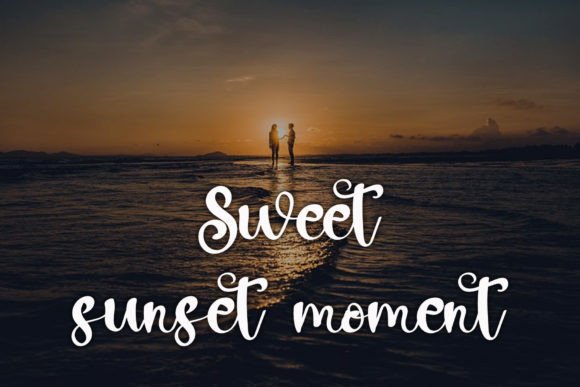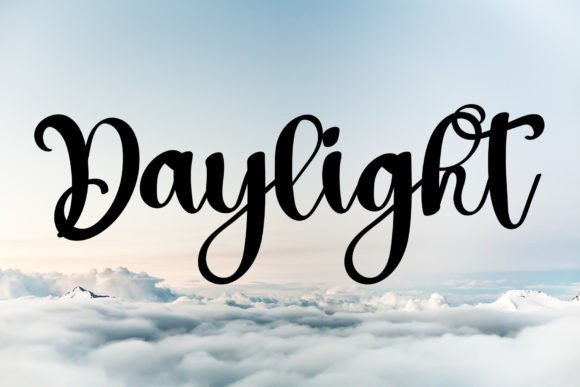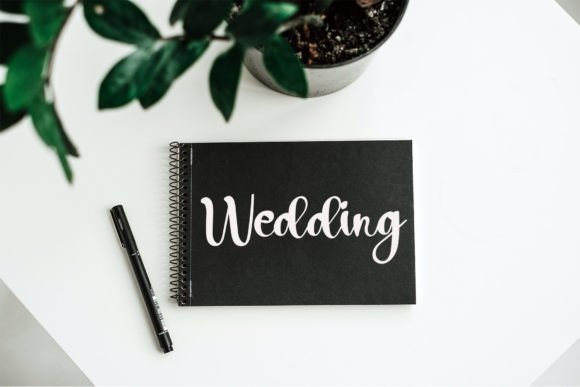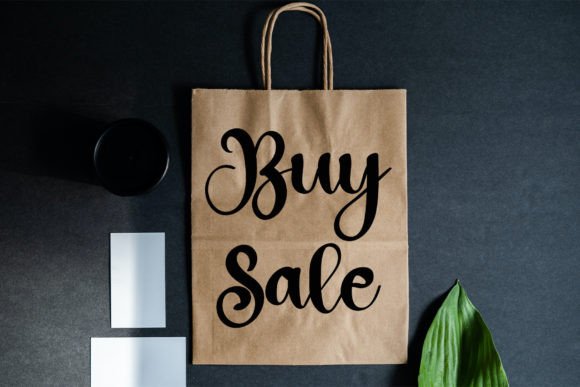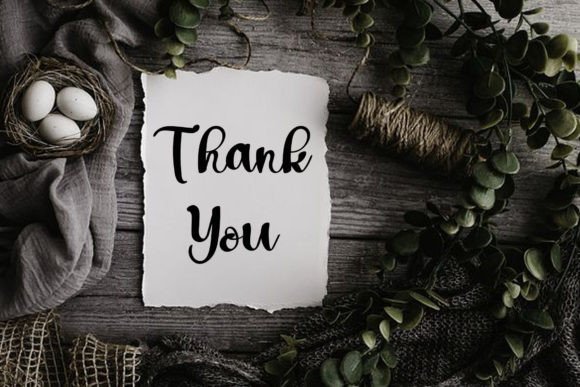
Introduction to Seafret Font
As a designer, there’s nothing quite like the thrill of discovering a new font that captures the essence of your creative vision. For me, that moment came when I stumbled upon the enchanting Seafret Font. Its elegant, handwritten touch transported me to a world of possibilities, where every project seemed like a masterpiece waiting to happen. I couldn’t help but wonder what kind of magic this font could weave into my designs.
Seafret Font is more than just a pretty face – it’s a valuable addition to any designer’s toolkit. With its high-quality, transparent background, it’s perfect for creating stunning visuals that pop against any background. Whether you’re working on a free download project or a commercial design, Seafret Font is sure to elevate your work to new heights.
Key Features of Seafret Font
- High-quality design resource ideal for creative projects, including posters, logos, and more.
- Seafret Font features a transparent background, allowing for seamless integration with any design.
- Includes 1 font style with 1 weight and 1 style.
- Designed for use at 72 dpi resolution and 100% scalable.
- Perfect for designers looking for a unique, hand-drawn font with a touch of elegance and sophistication.
Honest Review: Seafret Font
As a designer, I’m always on the lookout for high-quality design resources to elevate my creative projects. The Seafret Font caught my attention, and I decided to give it a try.
First impressions: the font looks stunning, and the free download option is a major plus. I love how it’s perfect for creating a modern, ocean-inspired aesthetic in my designs. The transparent background is also a great feature, making it easy to overlay on various images.
- ✨ High-quality design with a unique, handwritten feel
- ✨ Perfect for ocean-inspired or coastal-themed designs
- ✨ Transparent background for easy overlaying
- ⚠️ Limited character set, which might be a concern for longer text-based projects
- ⚠️ Not ideal for body text due to its cursive nature
Overall, I’m impressed with the Seafret Font. While it may not be suitable for every project, it’s a great addition to my design resource library. If you’re looking for a unique, high-quality font for your creative project, the Seafret Font is definitely worth checking out.
How to Use Seafret Font
Tips for Getting the Most Out of Seafret Font
To get the most out of the Seafret Font, be sure to:
- Use the font in conjunction with a transparent background to create a beautiful, elegant look.
- Experiment with different font sizes and styles to find the perfect look for your design project.
- Combine the Seafret Font with other design elements, such as images and graphics, to create a unique and eye-catching design.
Common Use Cases for Seafret Font
The Seafret Font is ideal for a variety of design projects, including:
- Website headers and footers
- Printable art
Avenir Next
Avenir Next is a high-quality sans-serif font designed for use in digital media. It’s perfect for creative projects that require a clean and modern aesthetic. With its transparent background, Avenir Next can be easily layered over images and designs.
Compared to Seafret Font, Avenir Next has a more geometric and structured feel. While Seafret Font has a more organic and handwritten feel, Avenir Next is ideal for projects that require a more technical and precise look.
Does the Seafret Font have a transparent background?
Yes, the Seafret Font typically includes a transparent background, making it easy to use in creative projects that require a high level of design flexibility. This feature allows you to easily place the font over a background image or color without worrying about a distracting outline.